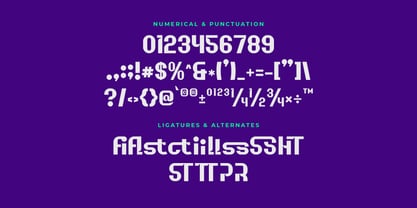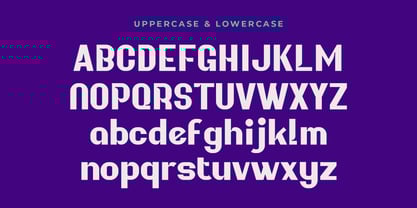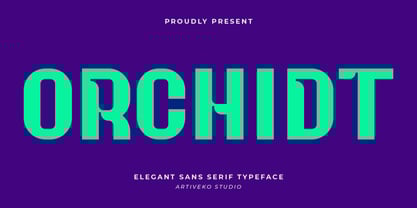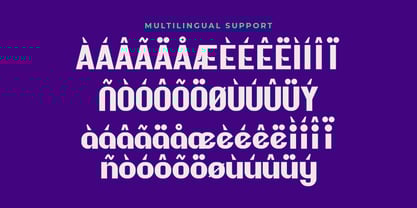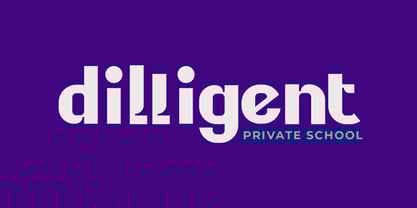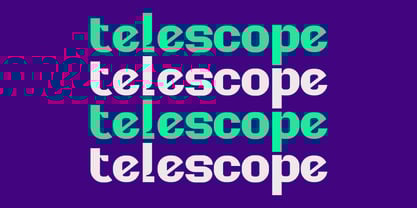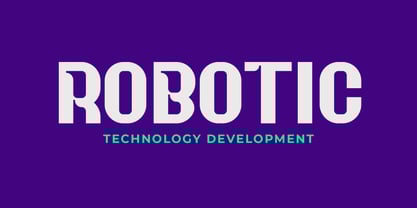
Orchidt
by Artiveko
The Orchidt Font Family was designed by Iwan Alwan and published by Artiveko. Orchidt contains 2 styles and family package options. More about this family
Orchidt is a modern tech sans serif font by Iwan Alwan, featuring sleek, futuristic letterforms that embody innovation and precision. Perfect for tech branding, UI/UX design, app interfaces, and futuristic visuals, Orchidt combines clean geometry with a contemporary aesthetic. With multilingual support, ligatures, and alternates, Orchidt offers versatility while maintaining its cutting-edge, tech-inspired style, making it ideal for projects that demand a forward-thinking and professional look.
Designers: Iwan Alwan
Foundry: Artiveko